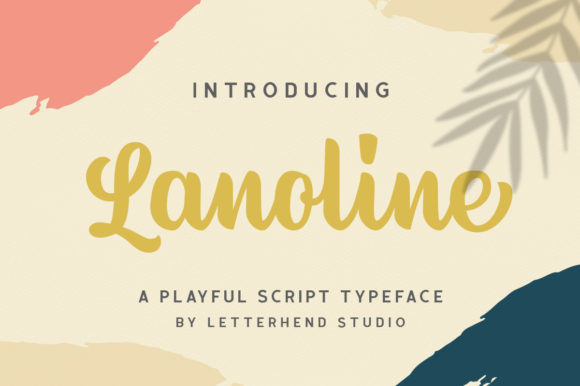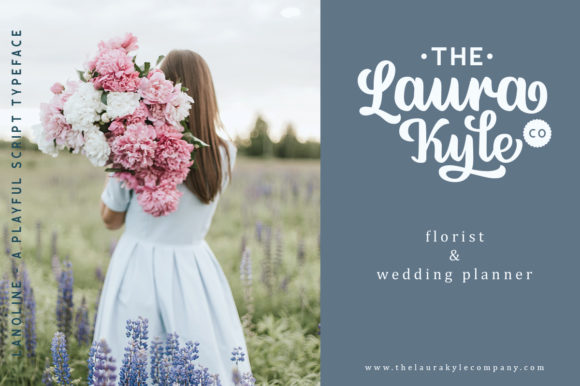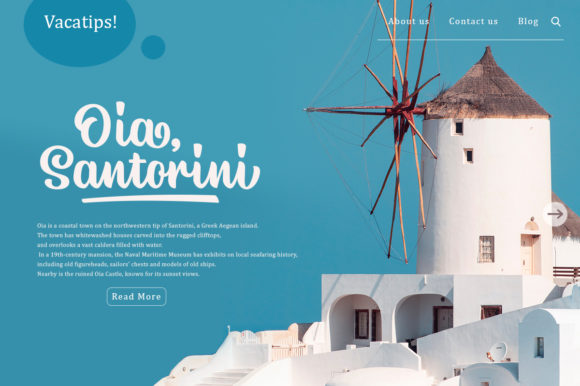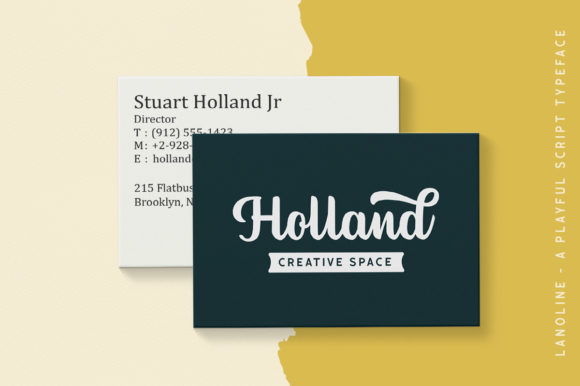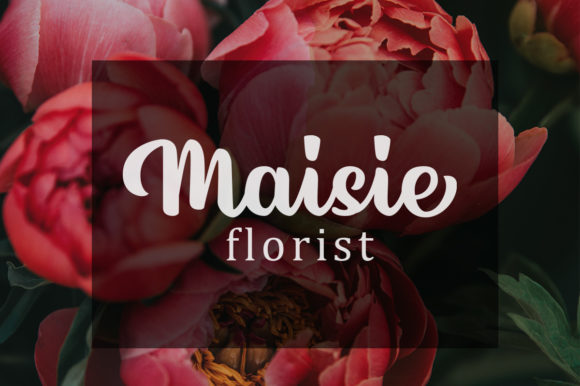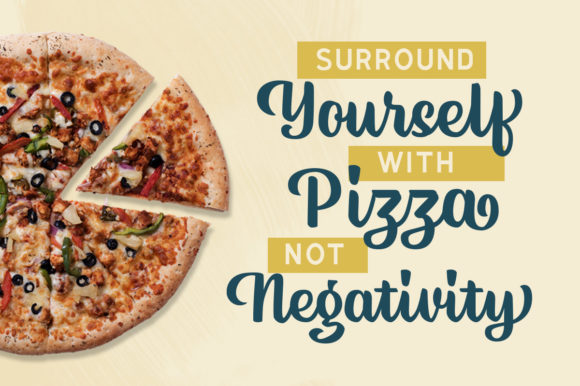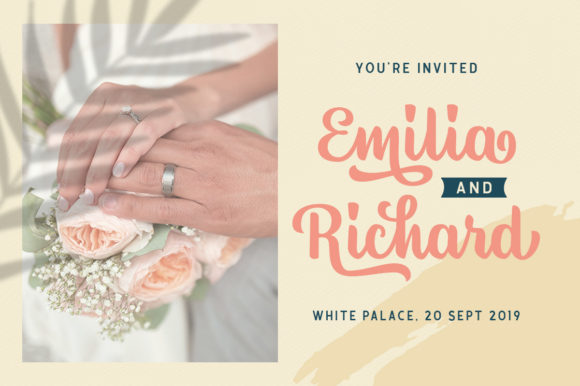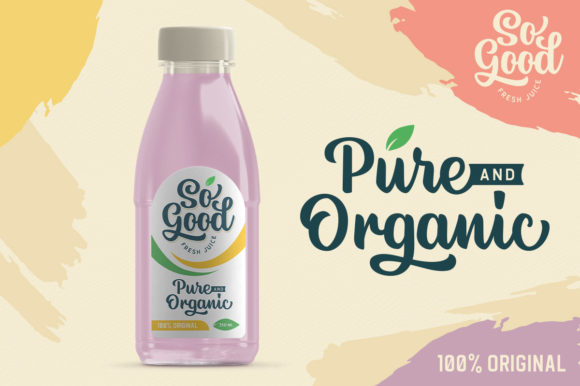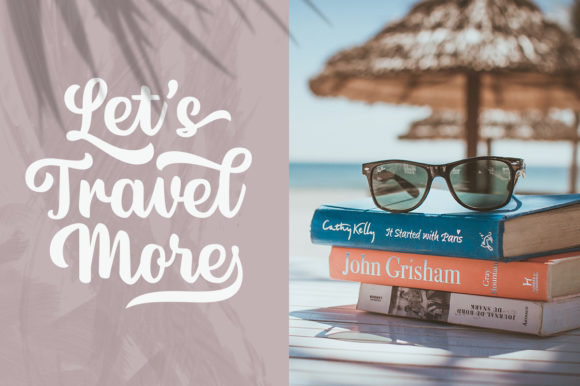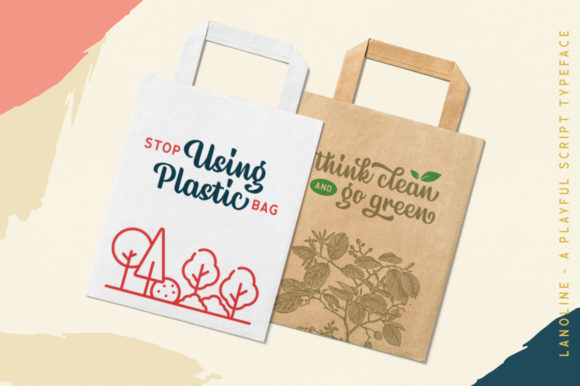
HomeScript FontsLanoline Font Script Fonts Lanoline Font FacebookXPinterestWhatsApp Lanoline Font Poster 2 Lanoline Font Poster 3 Lanoline Font Poster 4 Lanoline Font Poster 5 Lanoline Font Poster 6 Lanoline Font Poster 7 Lanoline Font Poster 8 Lanoline Font Poster 9 Lanoline Font Poster 10 Lanoline Font Poster 11 About Lanoline Font Lanoline is a sweet and cool script with a cool vibe. Use it to turn any design project into a standout! DOWNLOAD ON CREATIVE FABRICAThis font is sold and delivered by Creative Fabrica. Font Canyon may earn a commission if you buy through this link. People also explored Valentina Font Harper Moe Font Frankenbury Eafist Mountain Font Happy Halloween Font Brook Bright Font Badfury Font Farm House Font 318 0 TagsLanoline Font Previous articleJosephira FontNext articleDonkey Talk Font LEAVE A REPLY Cancel reply Comment: Please enter your comment! Name:* Please enter your name here Email:* You have entered an incorrect email address! Please enter your email address here Website: Save my name, email, and website in this browser for the next time I comment. Personal Use Free Autumn Flowers Font Personal Use Free Read more about this font Catandra Script Personal Use Free Read more about this font Genres Personal Use Free Read more about this font The Shocker Personal Use Free Read more about this font BLOG The 10 Best Handwriting Fonts to Add Personality to Your Designs 10 of the Best Handwriting Fonts for Adding Personality to Your Designs There will undoubtedly be no other better choice than handwriting fonts to give... Best Fonts for T-Shirt Design – Top 2025 Picks Where to Buy American Fonts Online in 2024 Modern Sans-Serif Fonts That Brands Love in 2025